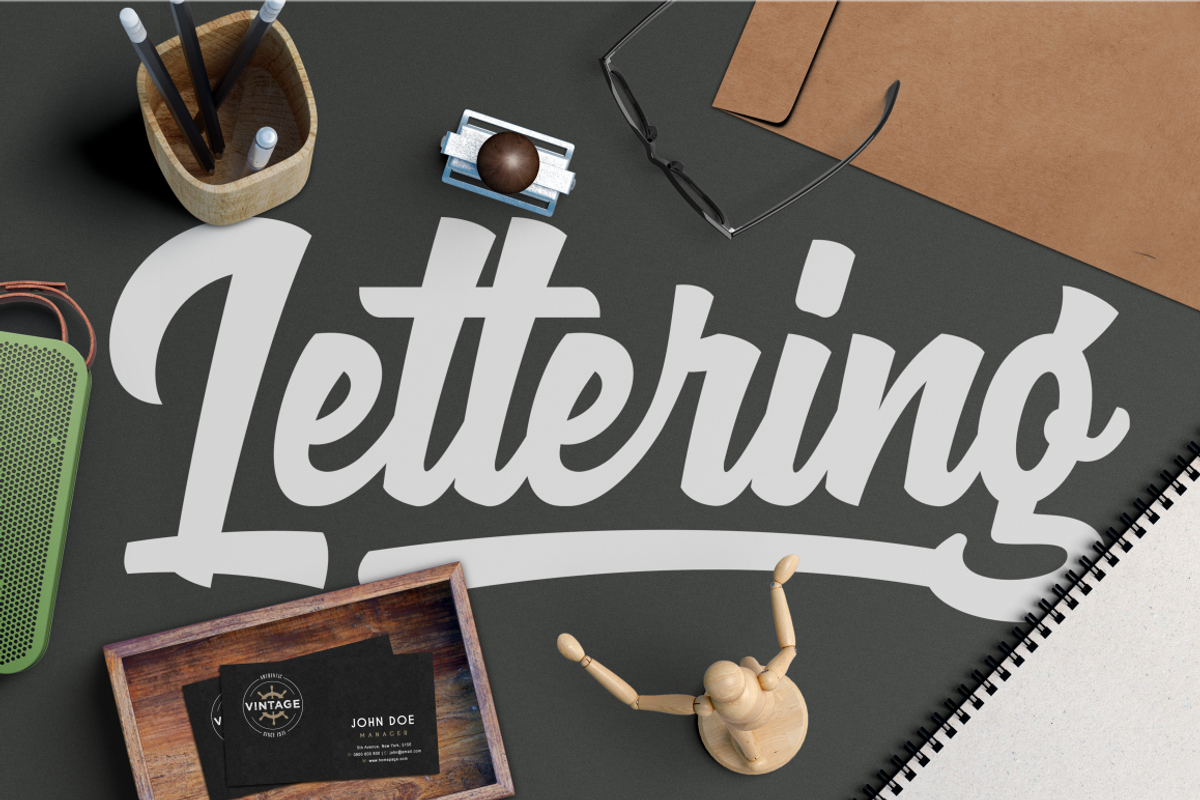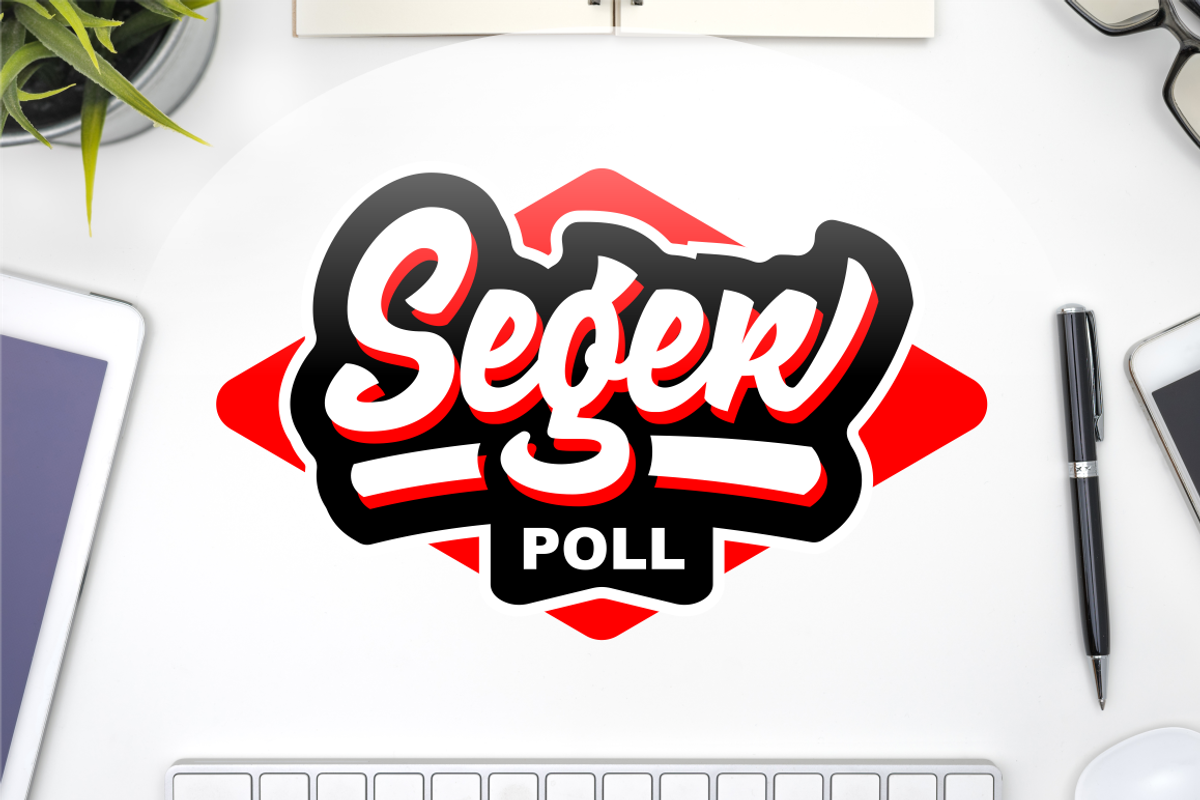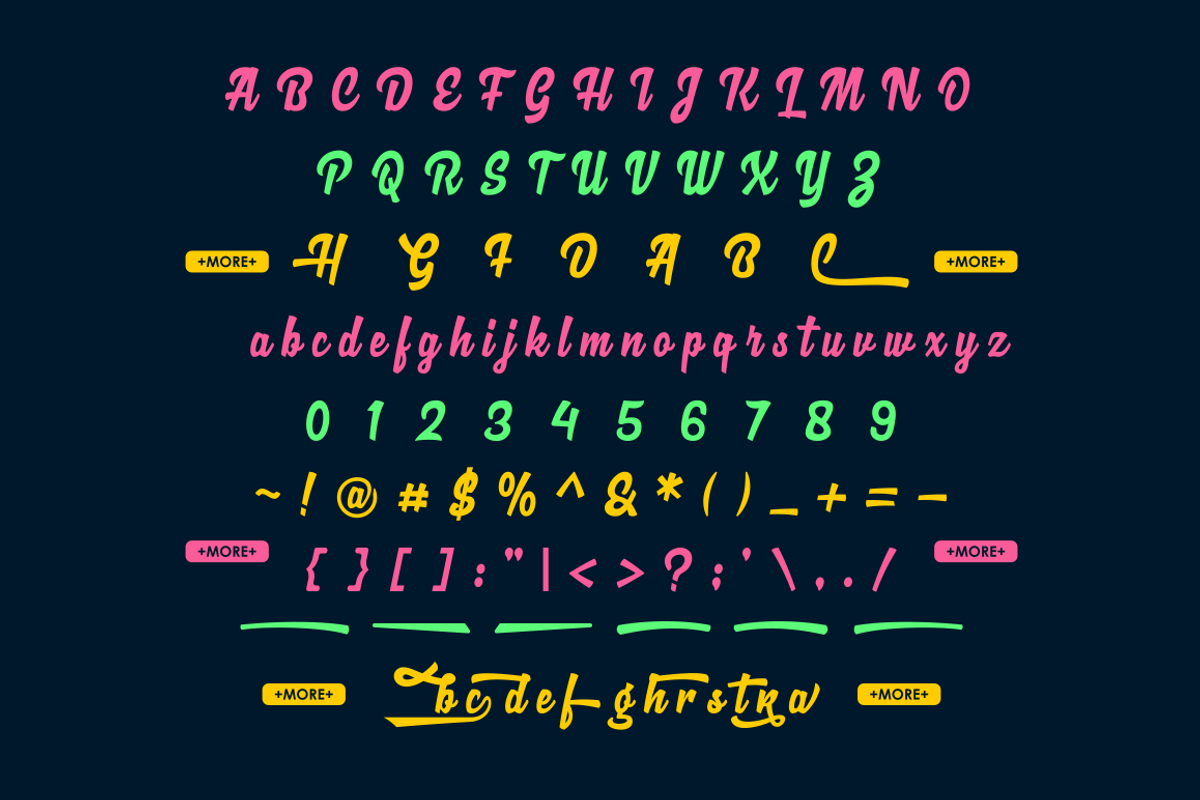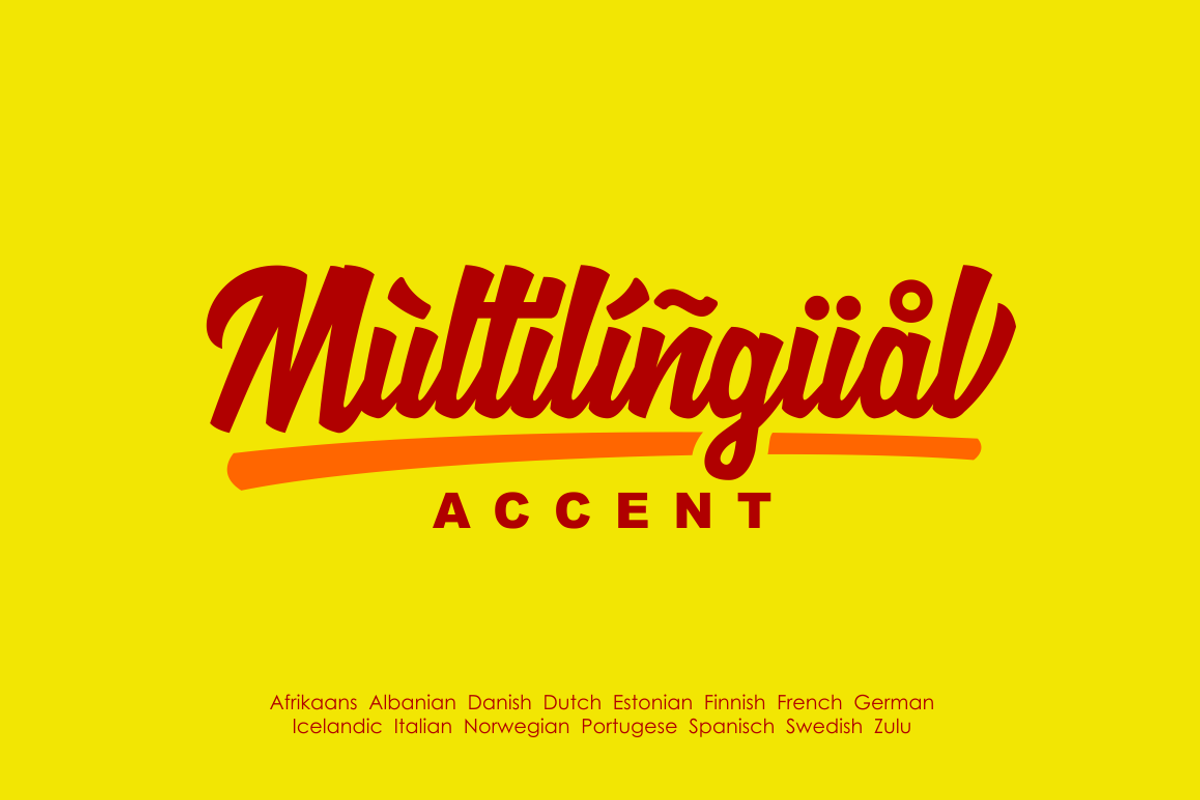
Loguetown
Introducing our new product. Loguetown Typeface. A bold script font inspired by brush lettering. Perfect for display, logotype, signage, sticker, label and more. You can apply this font for both modern and vintage designs.
- Standard Character ( Uppercase, Lowercase, Numeric, Punctuation )
- Multilingual Accent Support
- Discretionary Ligatures
- Alternates Character
- Extra Swashes ( as Alternate number 1 )